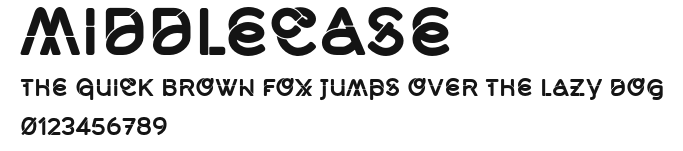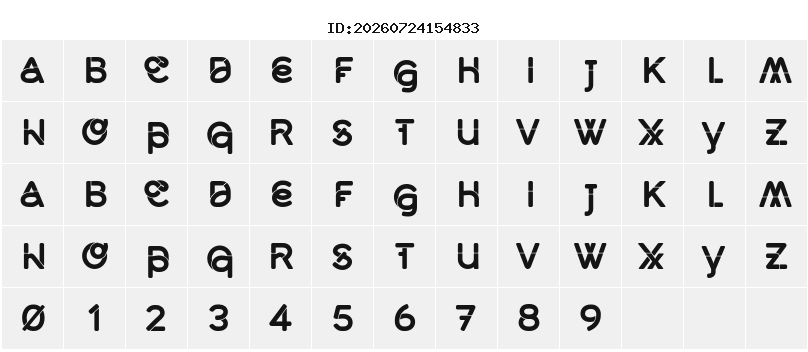
• Font Name: Middlecase
• Font Style: Bold Solid
• Full Font Name: Middlecase Bold-Solid
• Character Count: 244
• Designer: Morice Kastoun
• Manufacturer: Morice Kastoun @ HeadFirst Design
About Middlecase.otf
Middlecase.otf is a modern, elegant sans-serif font designed for ultimate readability and visual harmony. Perfect for branding, headlines, web design, and print materials.